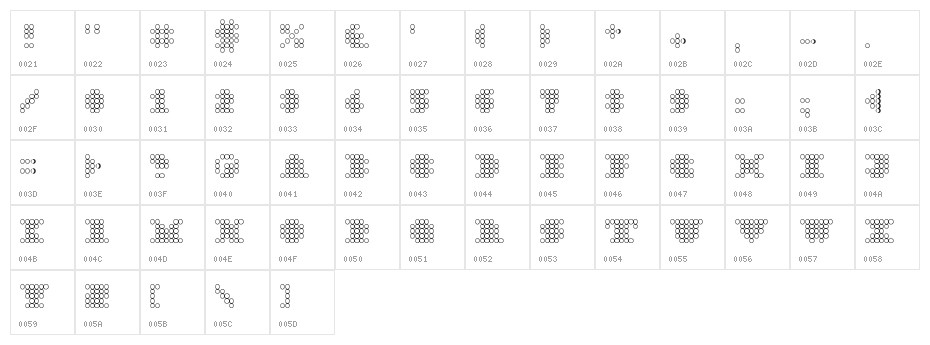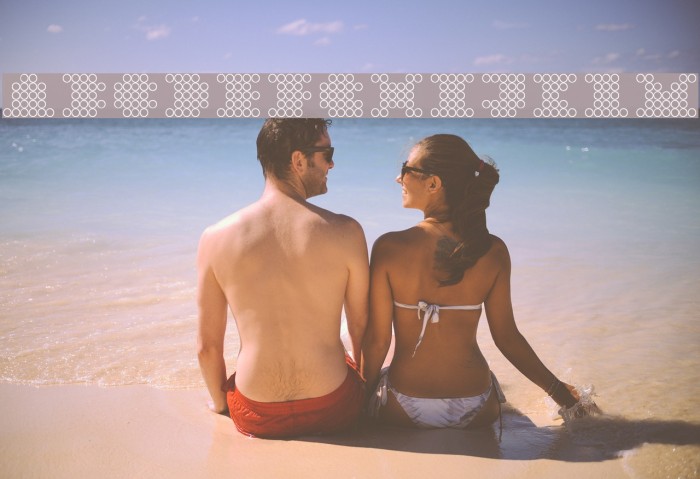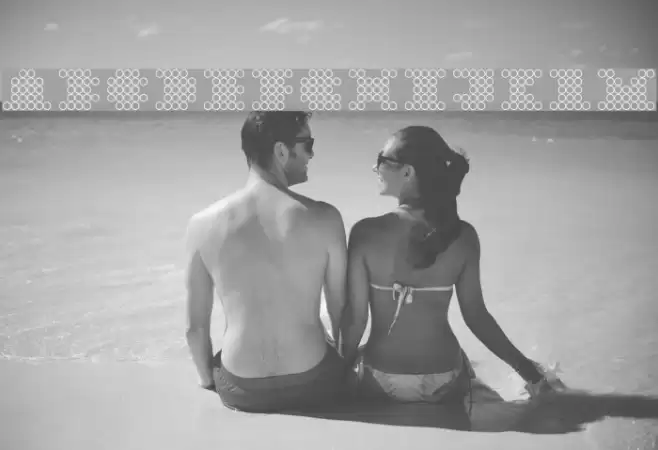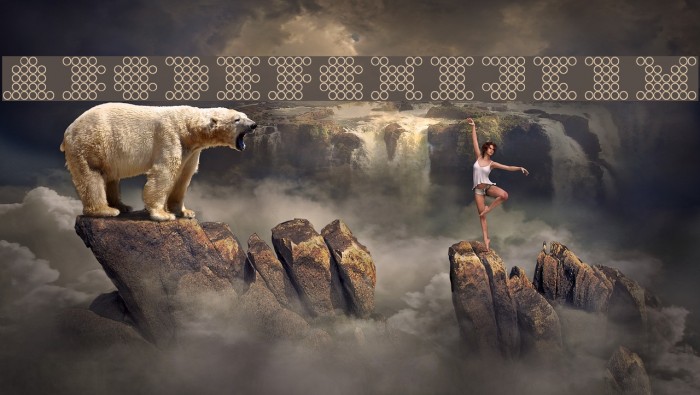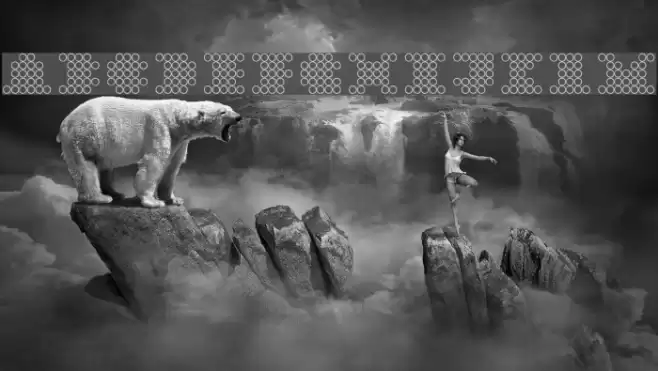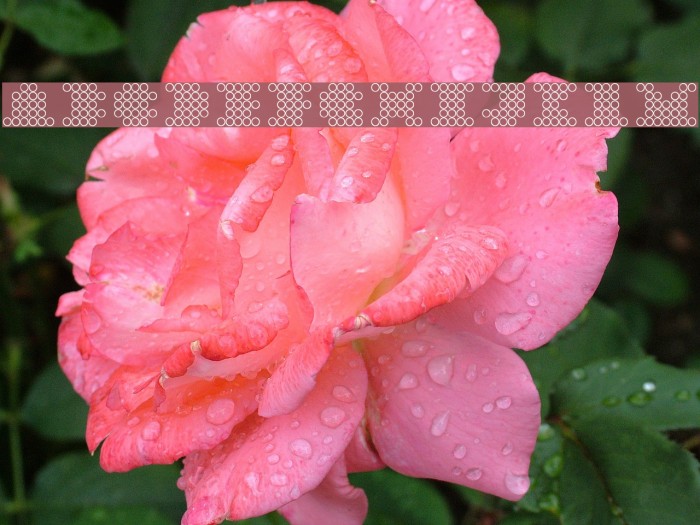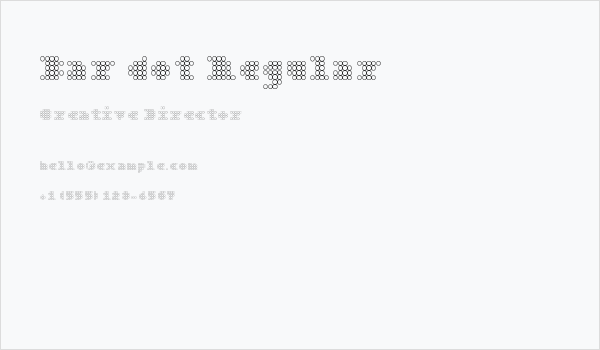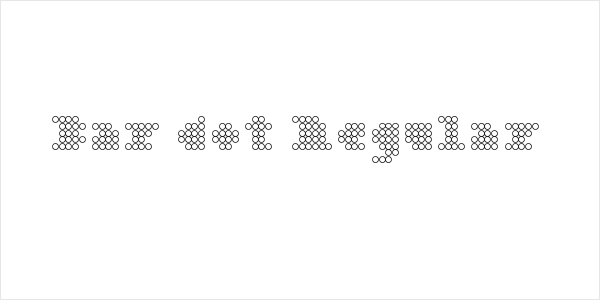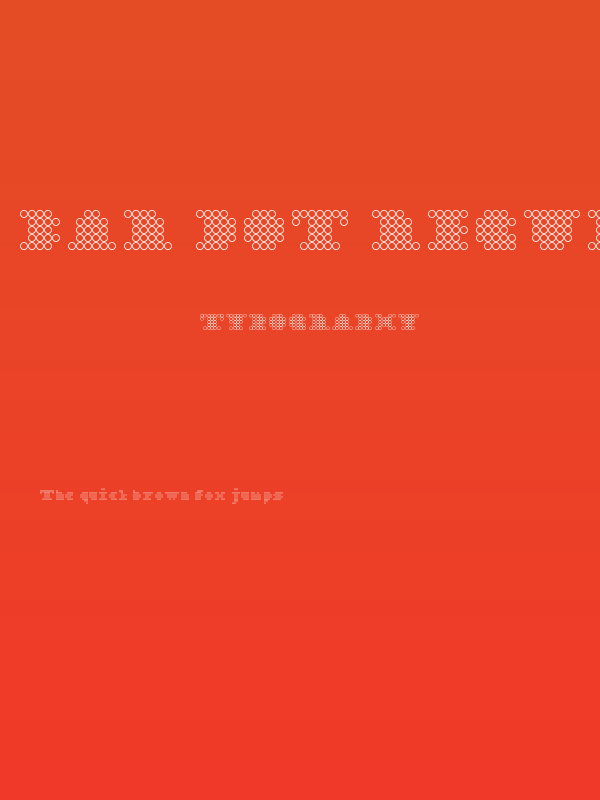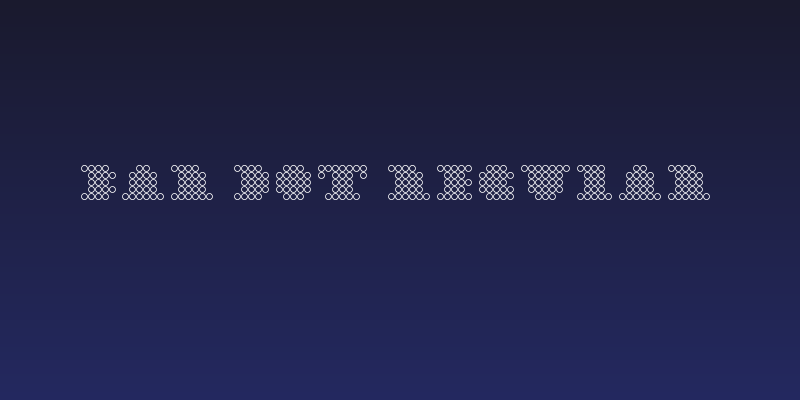
Bar dot Regular Font
Bar dot Regular Description
This unique font is composed entirely of small, evenly spaced circles forming each character. The design creates a dotted, pixelated effect that is both modern and playful. Each letter and number is constructed with precision, maintaining a consistent pattern throughout. The characters are easily distinguishable, despite their unconventional style, making them suitable for creative and eye-catching designs. The font's geometric nature gives it a structured yet whimsical appearance, perfect for projects that require a distinctive and memorable typeface.
| Use Case | Logos, Posters, Digital Art |
| Proposed Projects | Ideal for digital art, posters, logos, and any project needing a standout, creative typeface. |